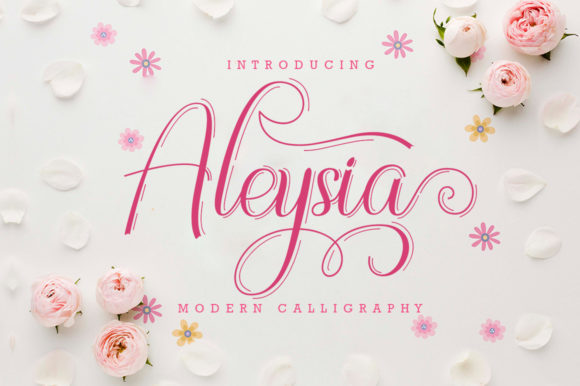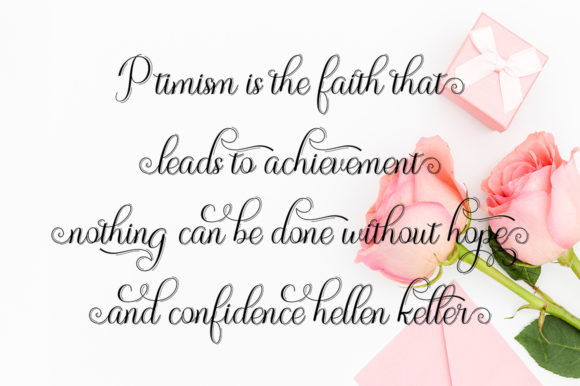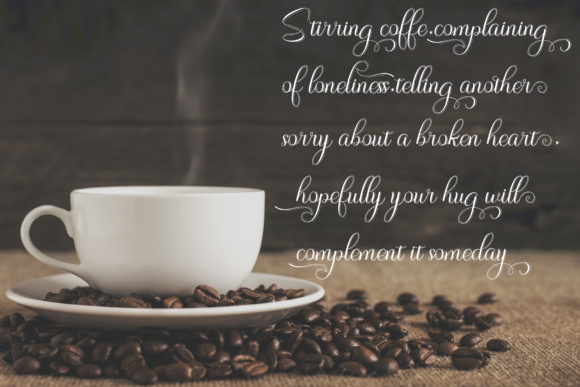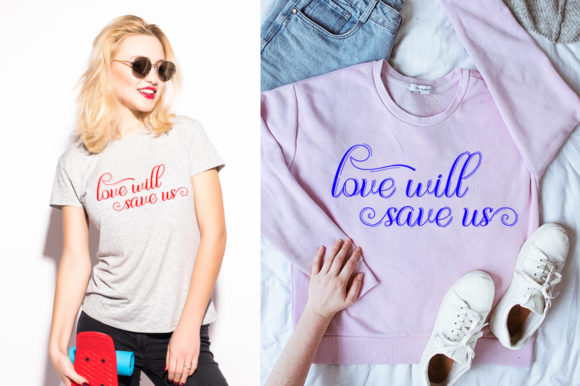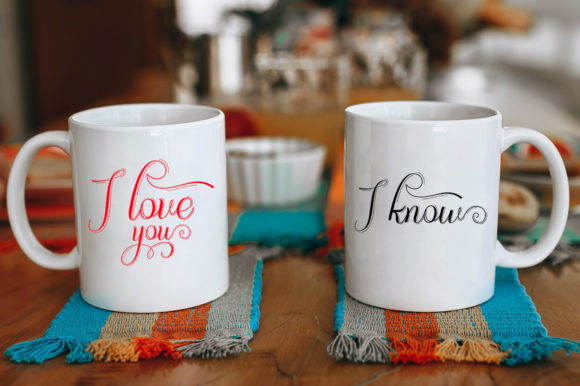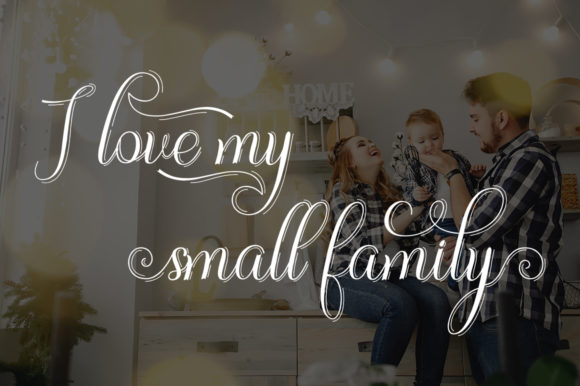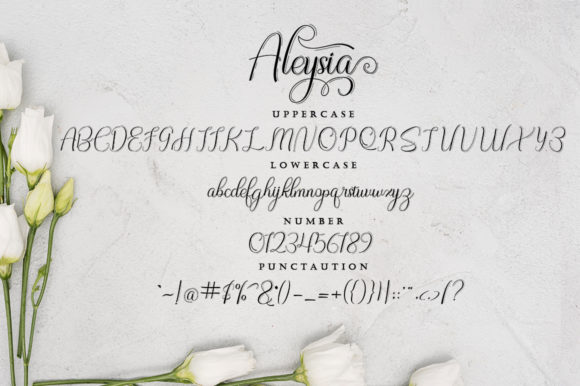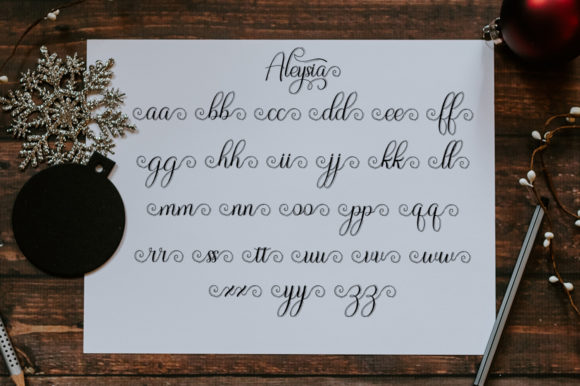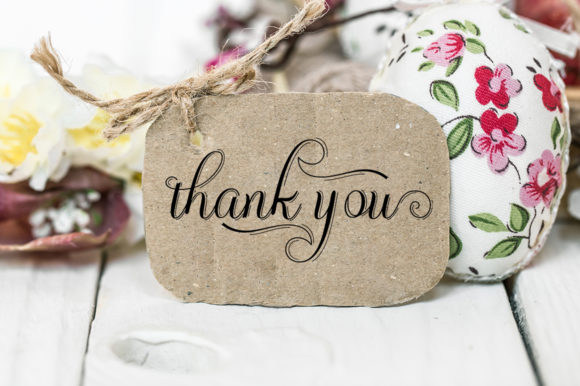
Aleysia Font
About Aleysia Font
Aleysia sounds like a truly enchanting and versatile handwritten font, perfect for elevating your creative projects to new heights. Let’s explore some exciting ways you can use Aleysia to create stunning and captivating designs:
1. Elegant Wedding Invitations: Use Aleysia’s delicate and flowing style to design elegant and romantic wedding invitations, setting the tone for a memorable celebration.
2. Whimsical Stationery Art: Create whimsical stationery art with Aleysia’s smooth lines and stunning alternates, adding a touch of magic to your designs.
3. Beautiful Quote Prints: Design beautiful quote prints featuring inspiring or heartfelt messages, utilizing Aleysia’s classy calligraphic influences.
4. Charming Greeting Cards: Craft charming and unique greeting cards for various occasions, using Aleysia’s gorgeous glyphs and swashes for a personalized touch.
5. Captivating Logos: Apply Aleysia to create captivating logos for brands or events that desire an elegant and contemporary identity.
6. Timeless Blog Headers: Design blog headers with Aleysia’s varying baseline, capturing a timeless and classy look for your online platform.
7. Eye-catching Social Media Posts: Create eye-catching social media posts using Aleysia’s versatile style to engage and captivate your audience.
8. Personalized Book Covers: Use Aleysia to design personalized book covers, adding an enchanting touch to literary works.
9. Sophisticated Packaging: Apply Aleysia to product packaging, enhancing the overall presentation with its delicate and flowing lettering.
10. Graceful Tattoo Lettering: Design graceful and meaningful tattoo lettering using Aleysia’s elegant and contemporary style.
11. Modern Calligraphy Art: Create modern calligraphy art with Aleysia, blending the classic influences with a fresh and contemporary twist.
12. Romantic Love Letters: Craft romantic love letters or handwritten notes with Aleysia, expressing affection in an elegant and flowing manner.
13. Timeless Branding: Apply Aleysia to create branding elements for businesses that wish to evoke a timeless and sophisticated vibe.
14. Dreamy Wall Art: Design dreamy wall art prints with Aleysia, featuring artistic and flowing lettering that brings a sense of enchantment to any space.
15. Inspiring Journal Entries: Use Aleysia for journaling, adding a touch of elegance and beauty to your personal reflections.
16. Charming Event Invitations: Craft charming event invitations with Aleysia’s stunning alternates and swashes, making each invitation unique and memorable.
17. Sophisticated Menu Designs: Apply Aleysia to design sophisticated menu layouts for restaurants or special events.
18. Captivating Flyers: Create captivating flyers with Aleysia’s smooth lines and well-balanced characters, attracting attention to your events or promotions.
19. Enchanting Art Prints: Design enchanting art prints with Aleysia, incorporating elements of nature or whimsy for a captivating aesthetic.
20. Timeless Quotes for Home Decor: Create timeless quotes or sayings with Aleysia to decorate your home with inspirational and elegant artwork.
In summary, Aleysia is a delicate and flowing handwritten font that offers a wide range of creative possibilities. From elegant wedding invitations to captivating social media posts, Aleysia adds a touch of enchantment and sophistication to any design. Embrace the versatility and charm of Aleysia, and let it inspire you to create beautiful and captivating projects that leave a lasting impression. The possibilities are boundless, and the magic awaits with Aleysia!